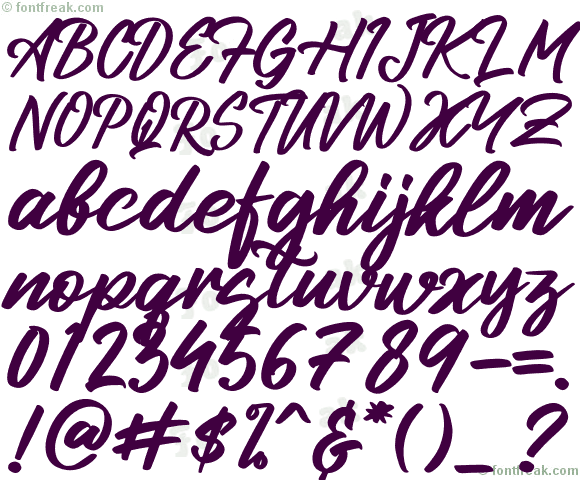
Kalingtone Brilliant
About Kalingtone Brilliant
Kalingtone Brilliant is a captivating script font designed by Perspectype Studio in 2021, classified as a display typeface. This font exudes elegance with its fluid, cursive strokes, making it perfect for a wide range of creative applications. The visual characteristics of Kalingtone Brilliant include a moderate stroke weight that transitions smoothly, providing a delightful contrast between thick and thin lines. The spacing is well-balanced, allowing for readability while maintaining an artistic flair. Decorative elements like graceful swirls and flourishes embellish specific letters, enhancing its sophisticated aesthetic.
The versatility of Kalingtone Brilliant makes it ideal for various use cases. It can elevate wedding invitations, imparting a romantic touch that speaks to the occasion’s significance. Additionally, this font works beautifully for movie posters, adding an air of drama and creativity that captures attention. Restaurant menus benefit from its elegant script, enticing diners with a sense of gourmet dining. Furthermore, content creators can utilize Kalingtone Brilliant for social media graphics, making posts stand out with its unique charm.
What sets Kalingtone Brilliant apart is its ability to combine elegance and readability, making it suitable for both formal and casual contexts. Its artistic flair and inherent versatility allow it to enhance any project effortlessly. For those interested in adding a touch of sophistication to their designs, the Kalingtone Brilliant font free download is an excellent choice that will not disappoint.